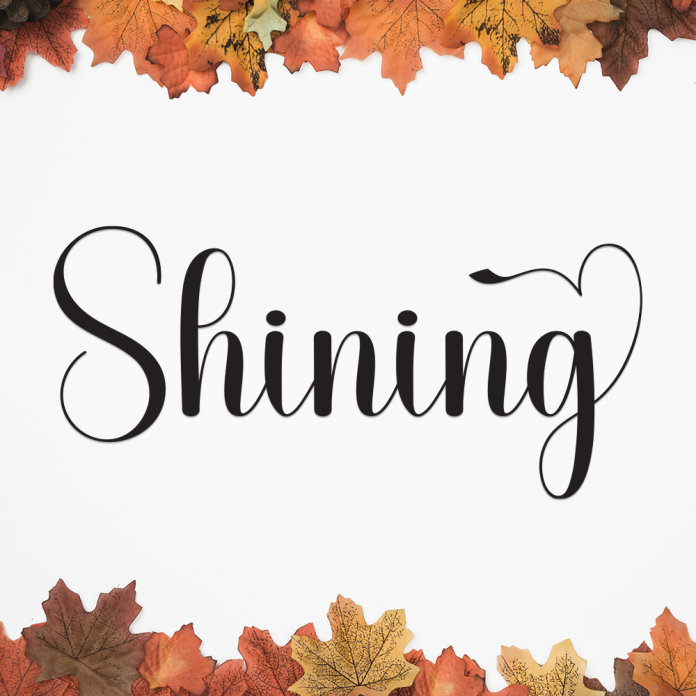
Shining is a delightful handwriting font that sparkles with warmth and personality. Its flowing strokes and soft curves give your text a handwritten feel that's both friendly and elegant. Whether you're working on personal projects or branding for a creative business, Shining adds a glowing, human touch.
From social media graphics to wedding invitations, this font brings a bright and stylish vibe to every design.
Natural and smooth handwritten style
Perfect for quotes, logos, invitations, greeting cards, and more
Includes uppercase & lowercase, numbers & punctuation
Add a little sparkle to your words with Shining — a font that glows with creativity and charm.